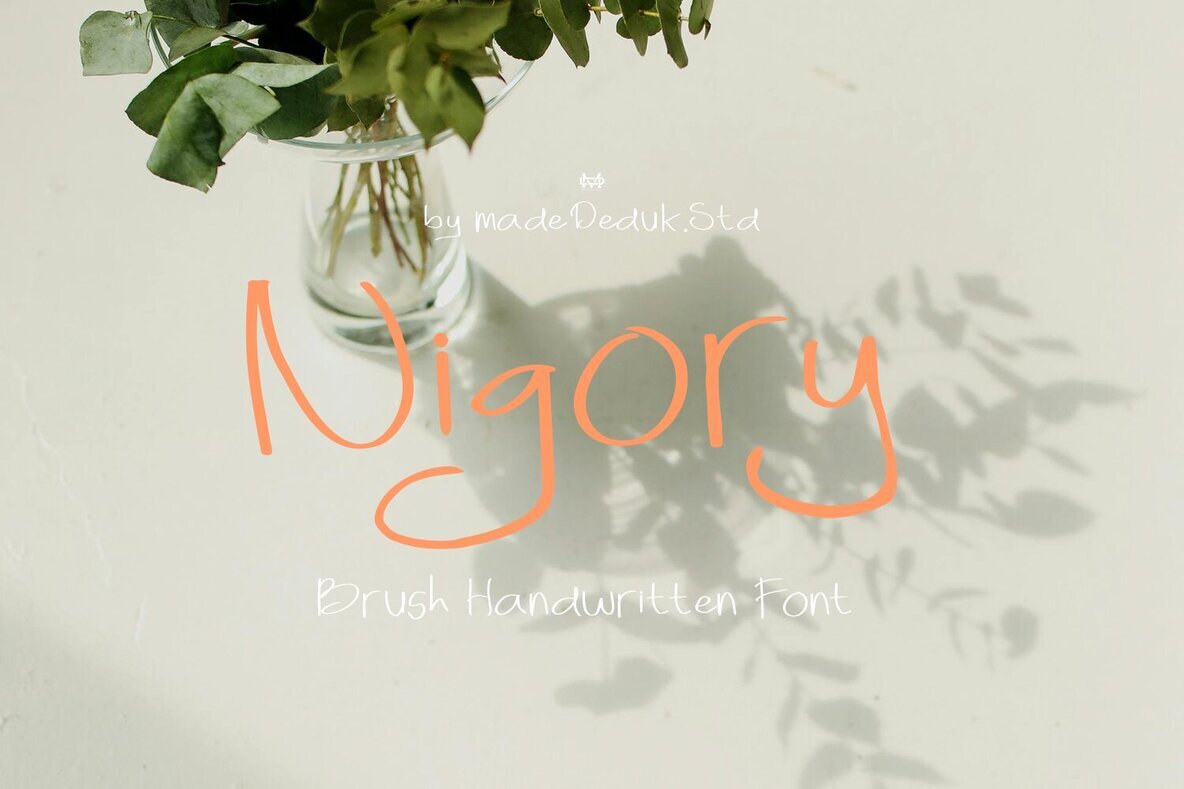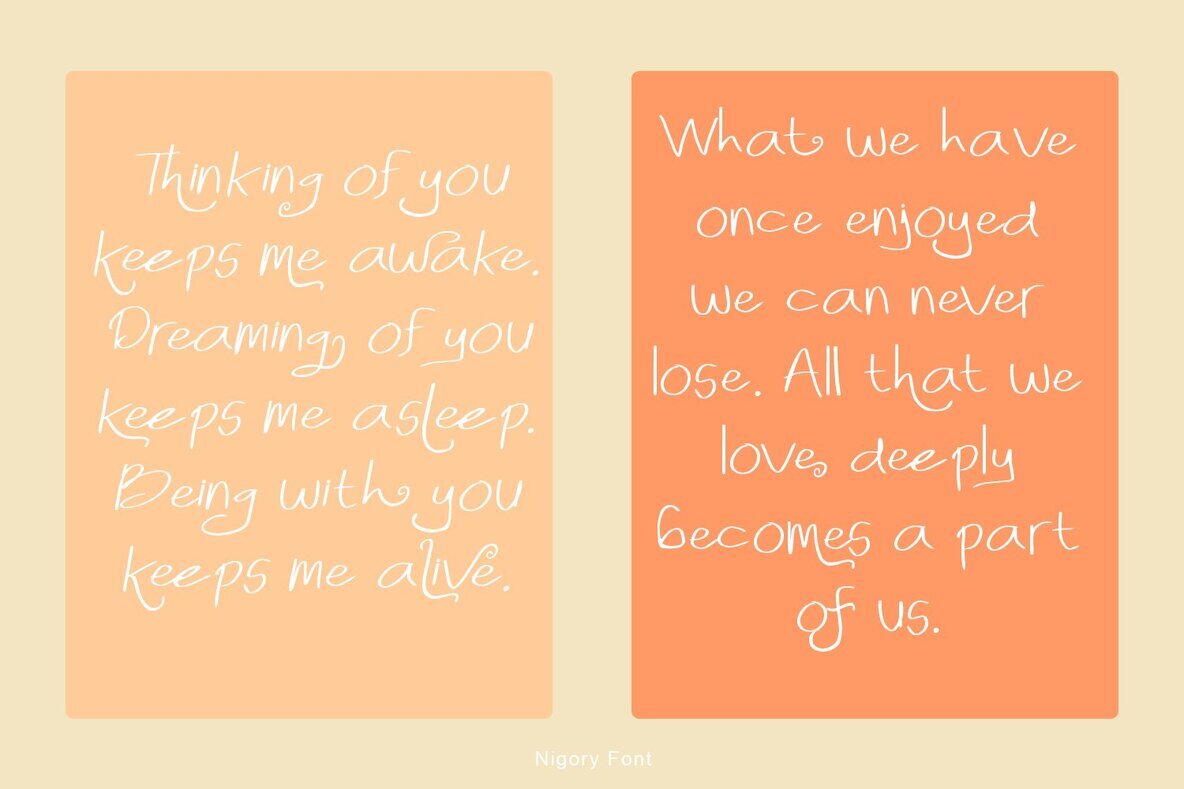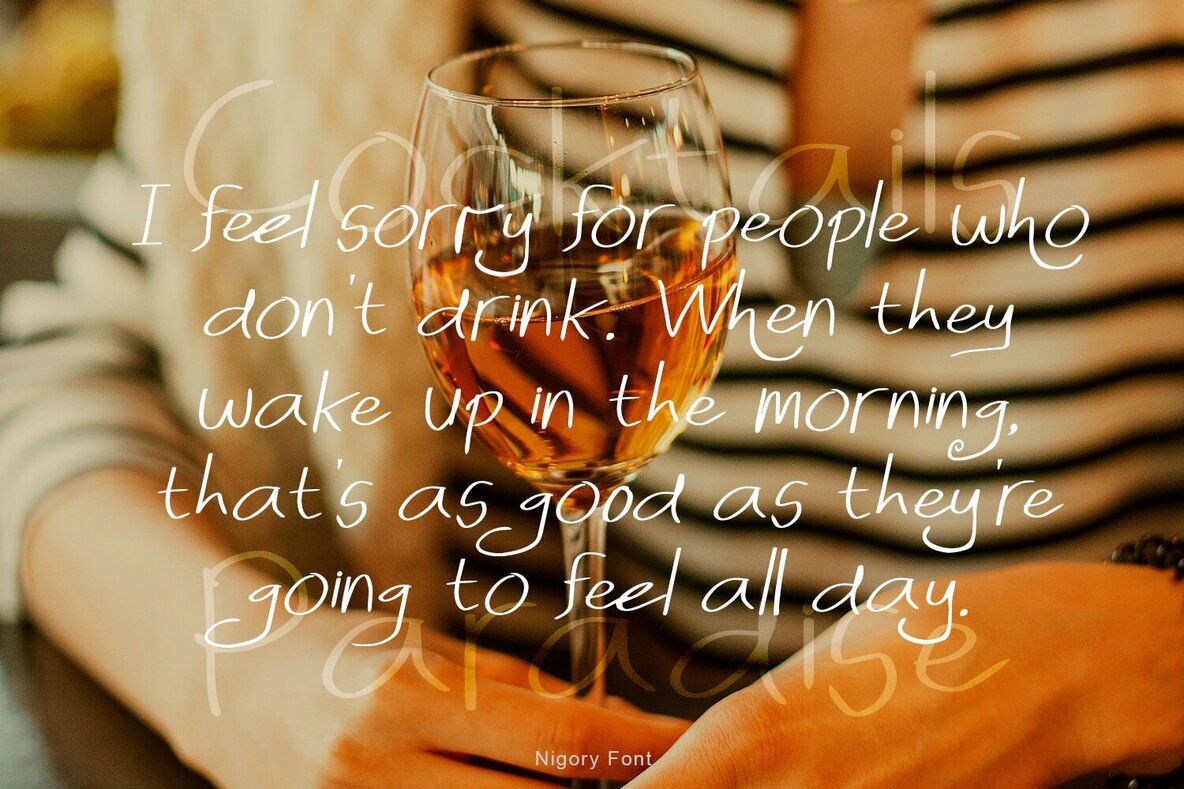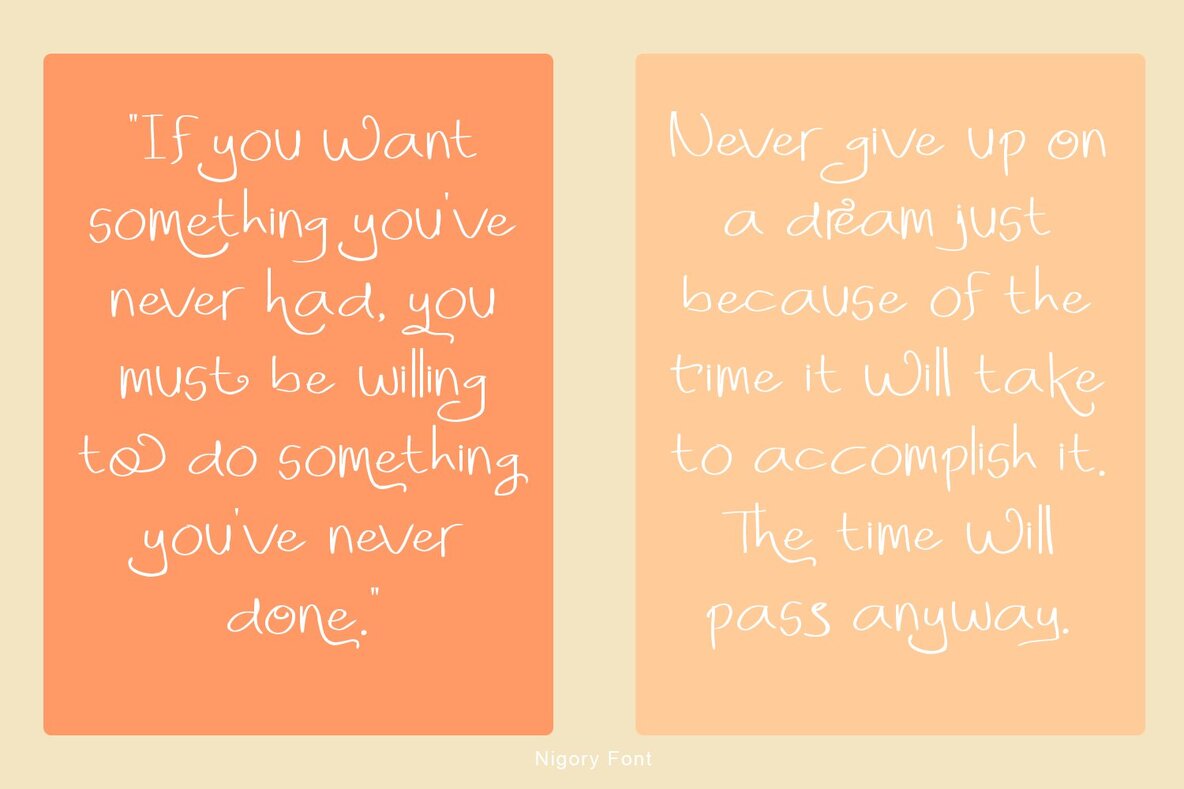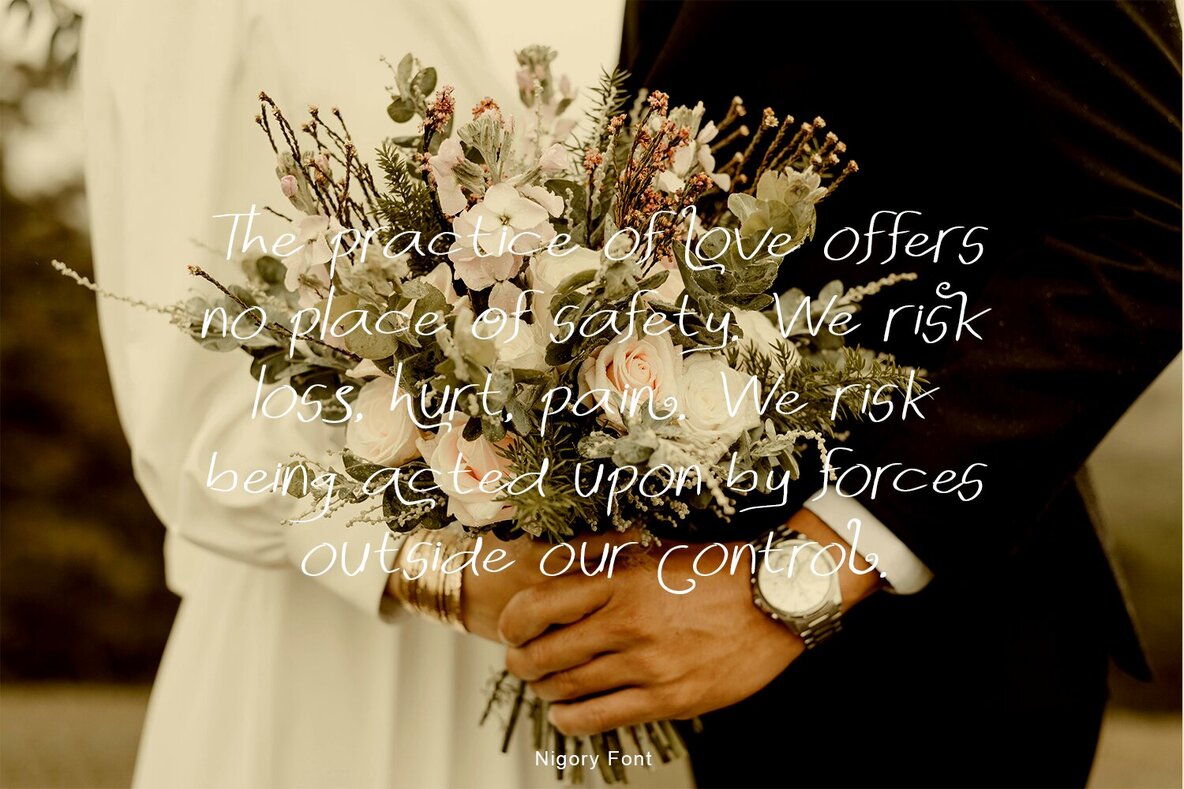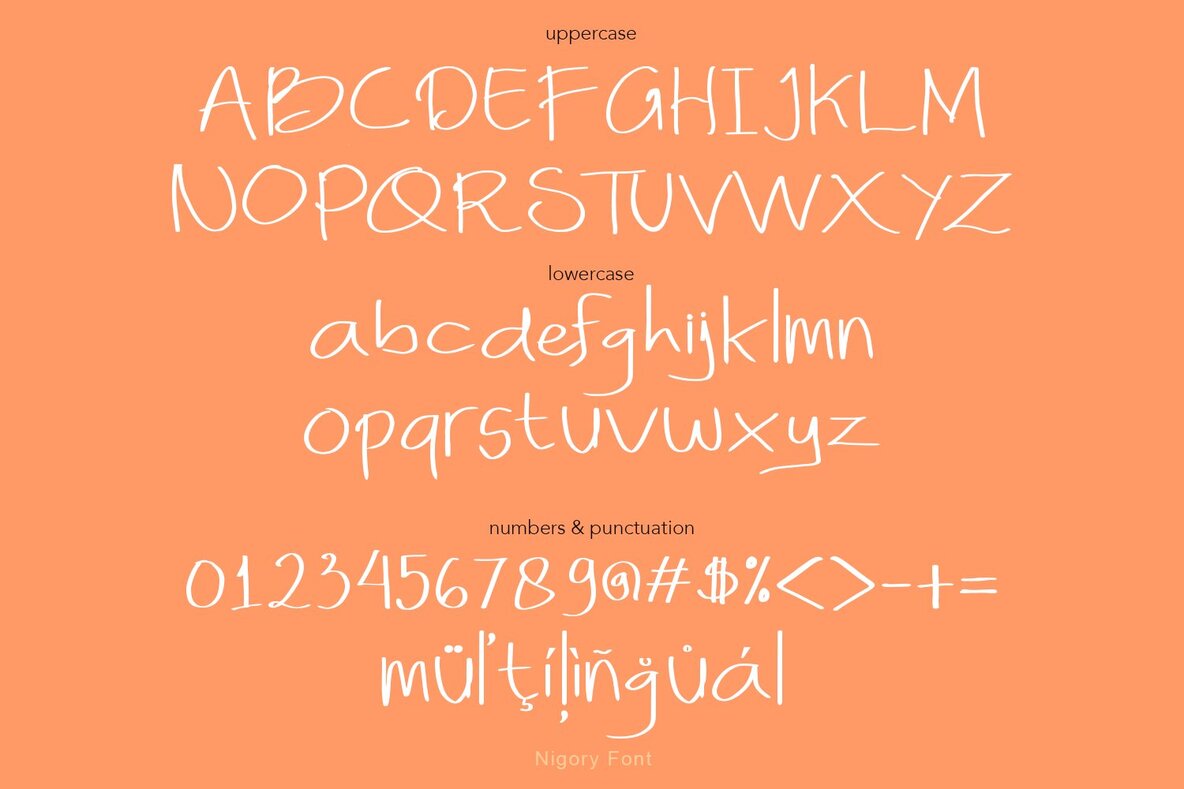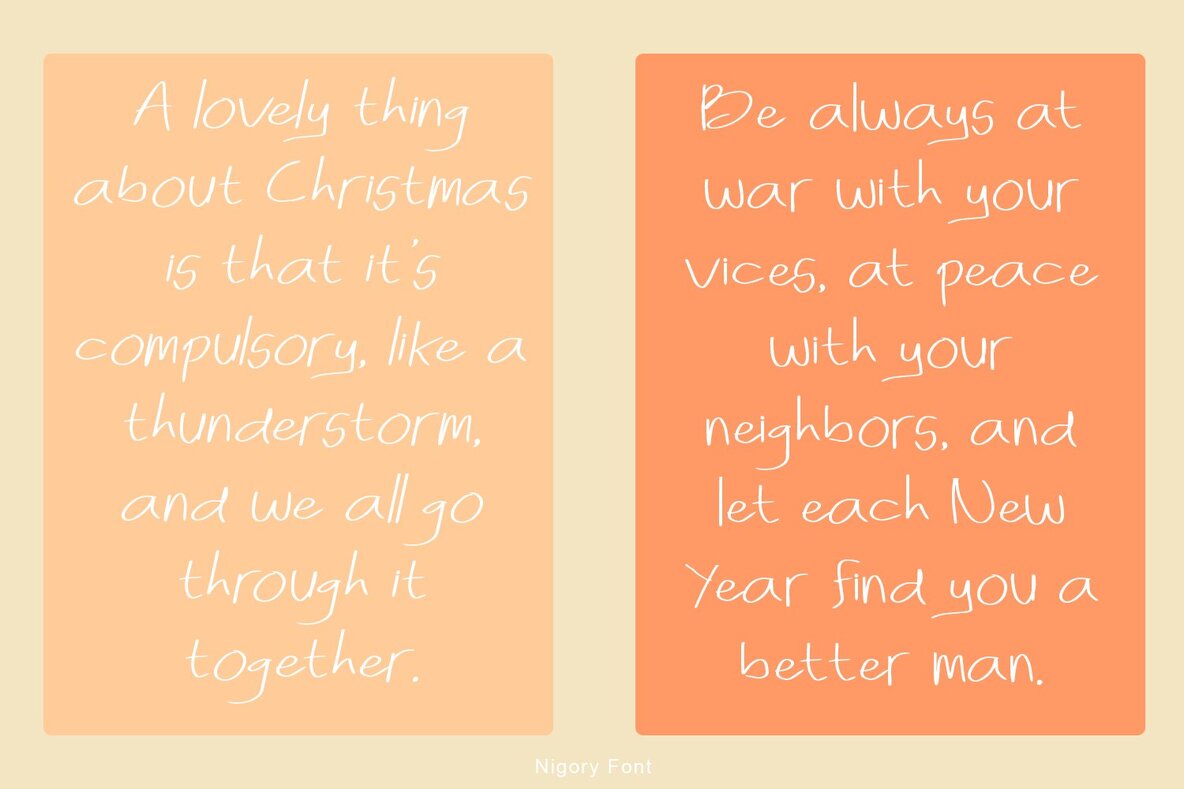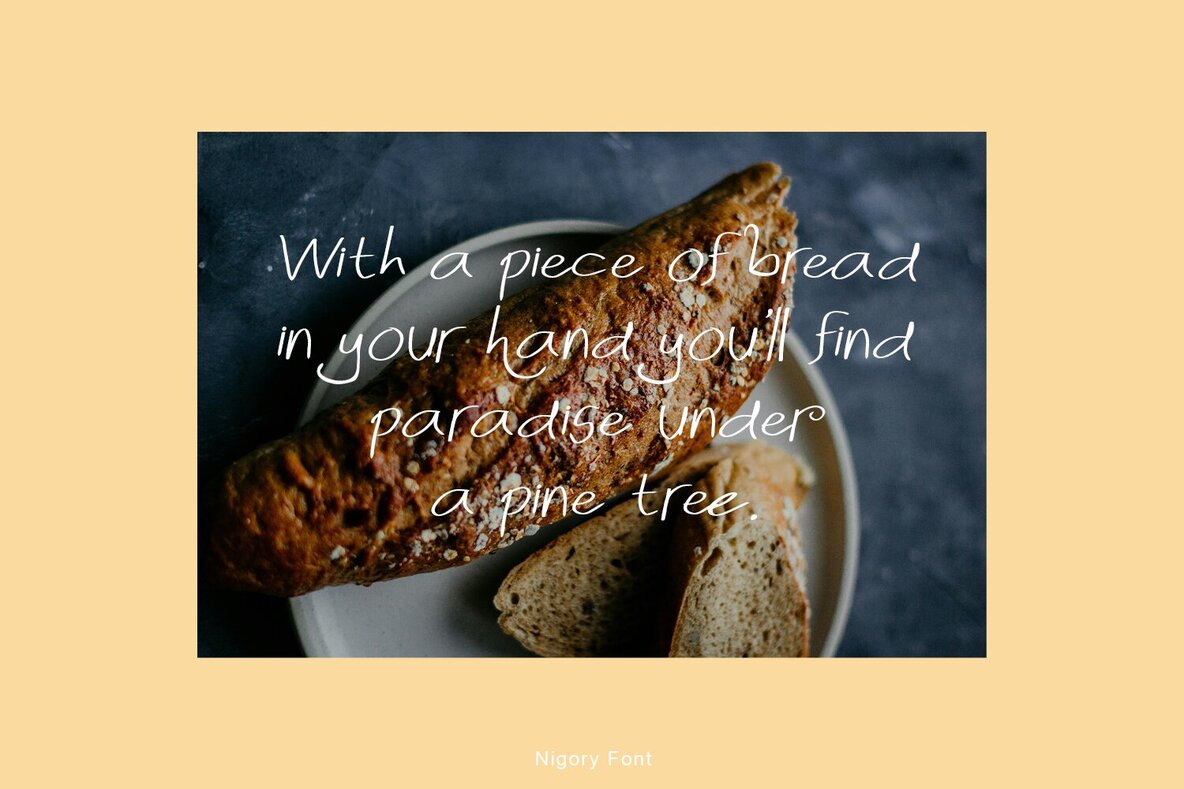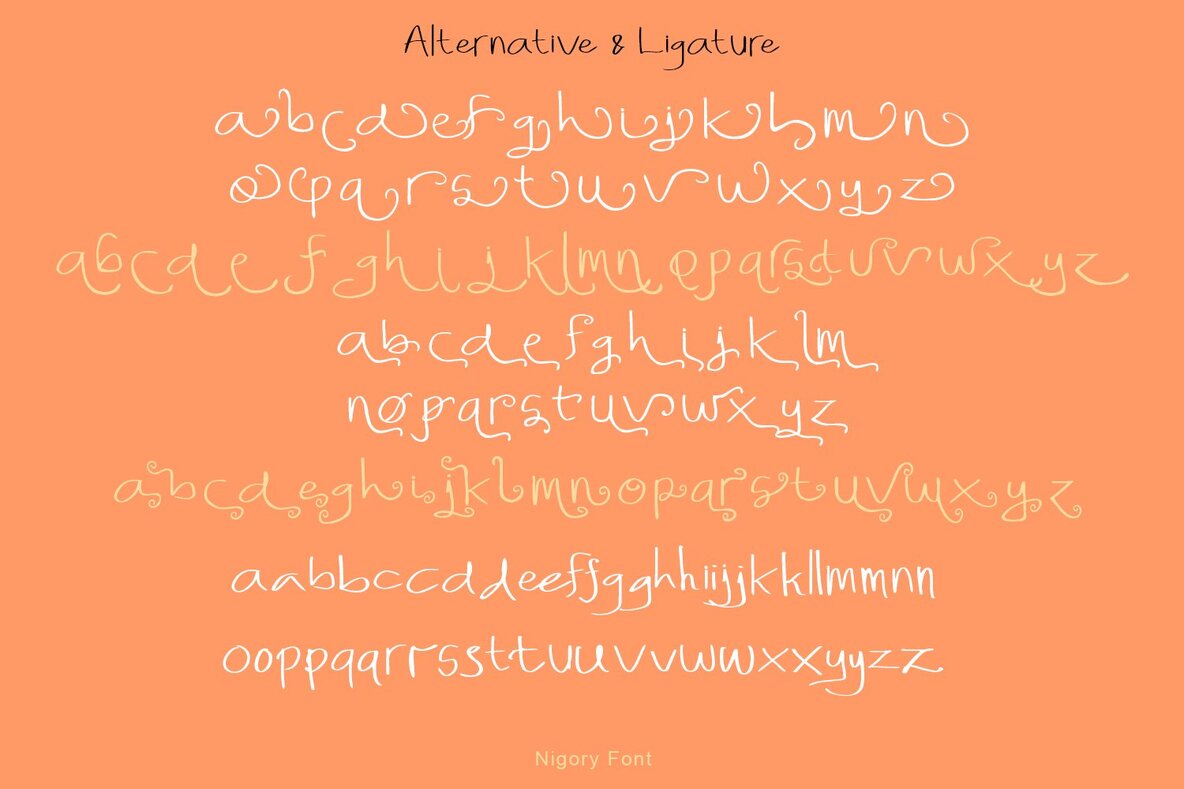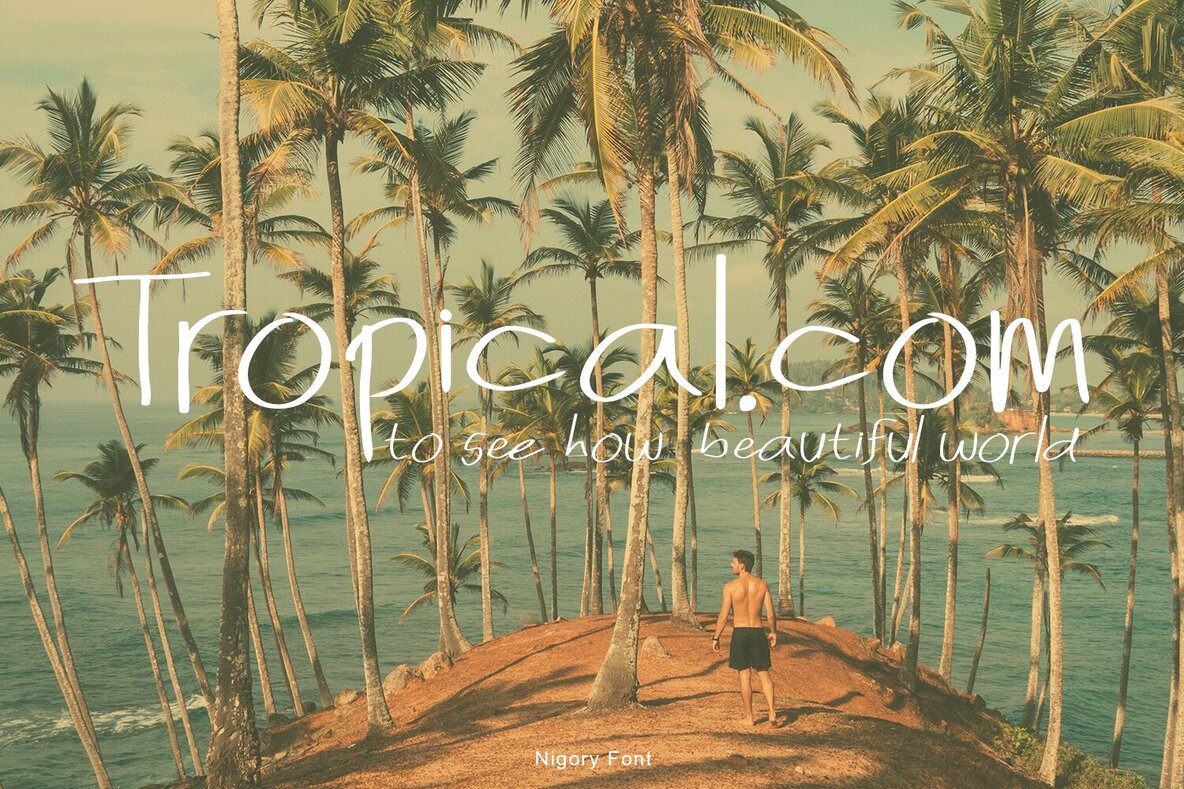
Nigory Font
Nigory offers an extraordinary touch to any creative design project with its handcrafted brush style. This font is rich in ligatures and alternatives, ensuring a genuine handwritten appearance. Ideal for a diverse range of applications, Nigory enhances designs with its realistic and dynamic flair.Nigory: A Handwritten Brush Font